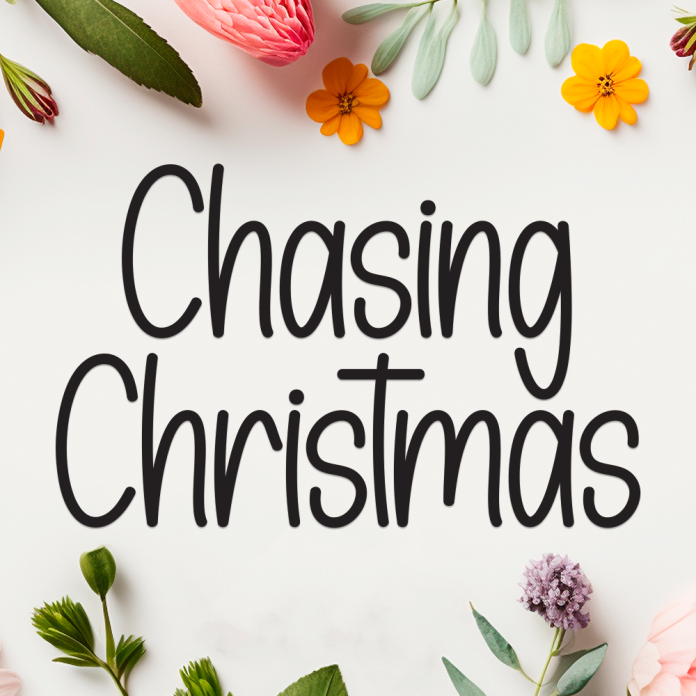
Chasing Christmas is a whimsical and festive display font designed to capture the excitement and magic of the holiday season. With bold, playful shapes and a touch of sparkle, it’s perfect for creating eye-catching designs that spread joy and warmth.
Display style with cheerful, decorative characters
Inspired by Christmas lights, winter magic, and joyful traditions
Ideal for greeting cards, holiday branding, invitations, packaging, and crafts
Includes uppercase, lowercase, punctuation & multilingual support
Let your holiday designs shine bright with Chasing Christmas — the perfect font for spreading festive happiness!